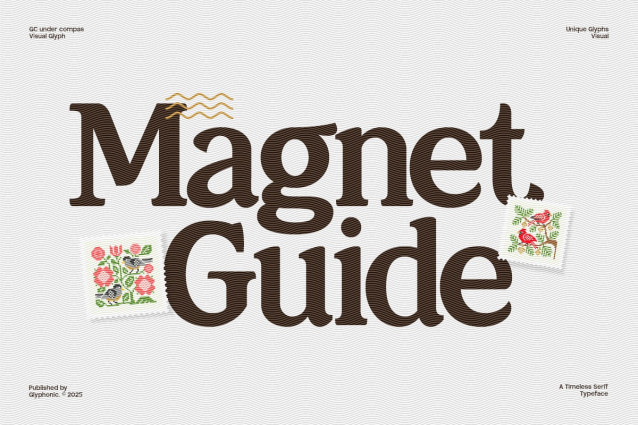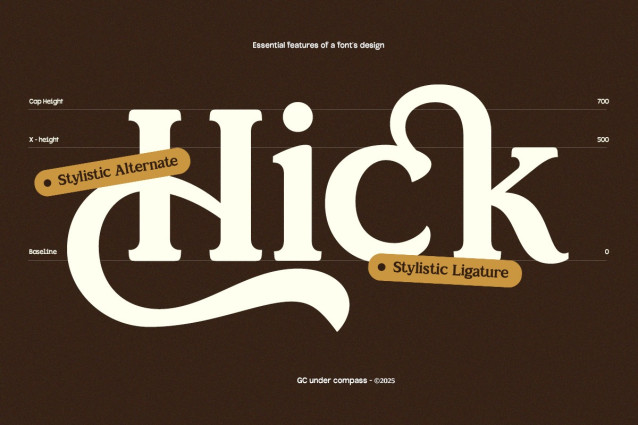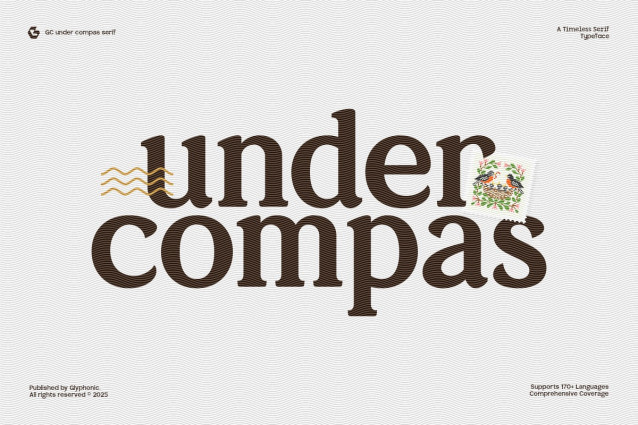
Gc Under Compas Font
GC Under Compass Font – Serif Stories for Every Page is a timeless serif typeface that blends classic elegance with contemporary refinement. Inspired by traditional letterforms yet designed with modern usability in mind, it offers warmth, sophistication, and character in every stroke. Perfect for editorial layouts, book titles, branding, and heritage-inspired designs, this font brings a narrative quality to any project.
With its harmonious proportions, subtle curves, and confident presence, GC Under Compass delivers a versatile serif that feels both familiar and fresh. Whether you’re creating literary covers, elegant packaging, or storytelling visuals, this typeface adds depth, charm, and a sense of direction to your typography.